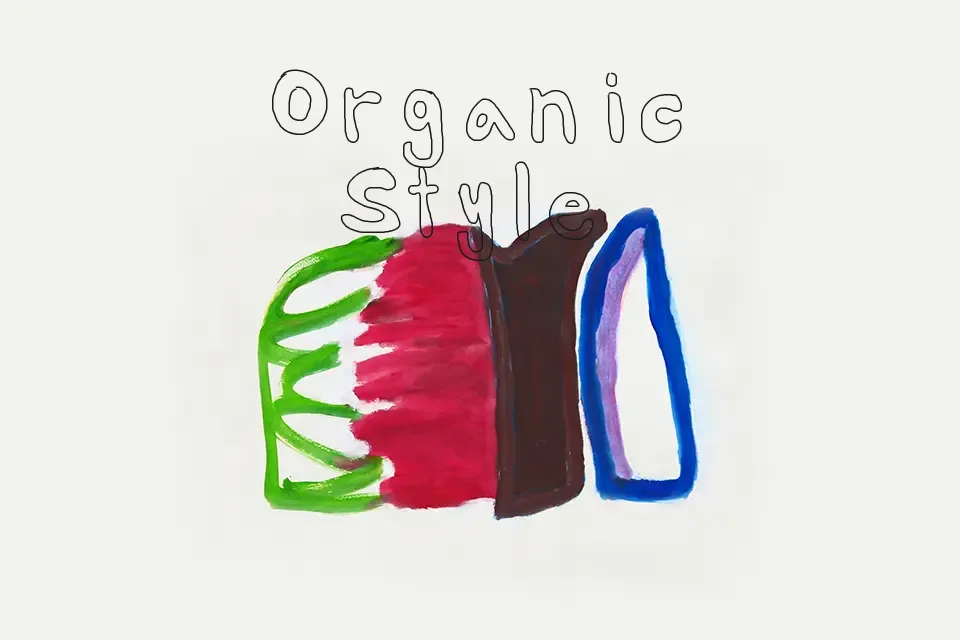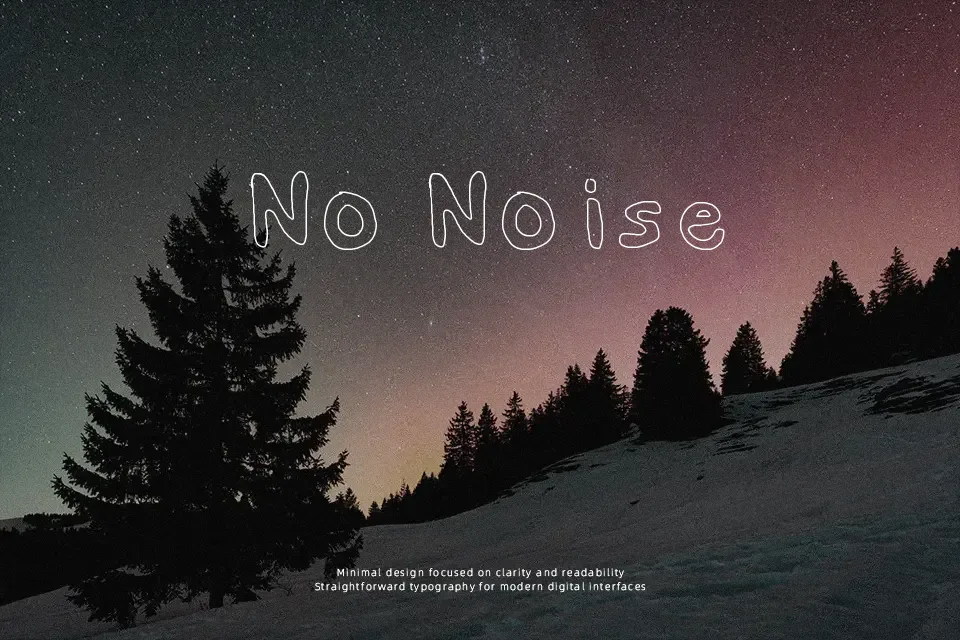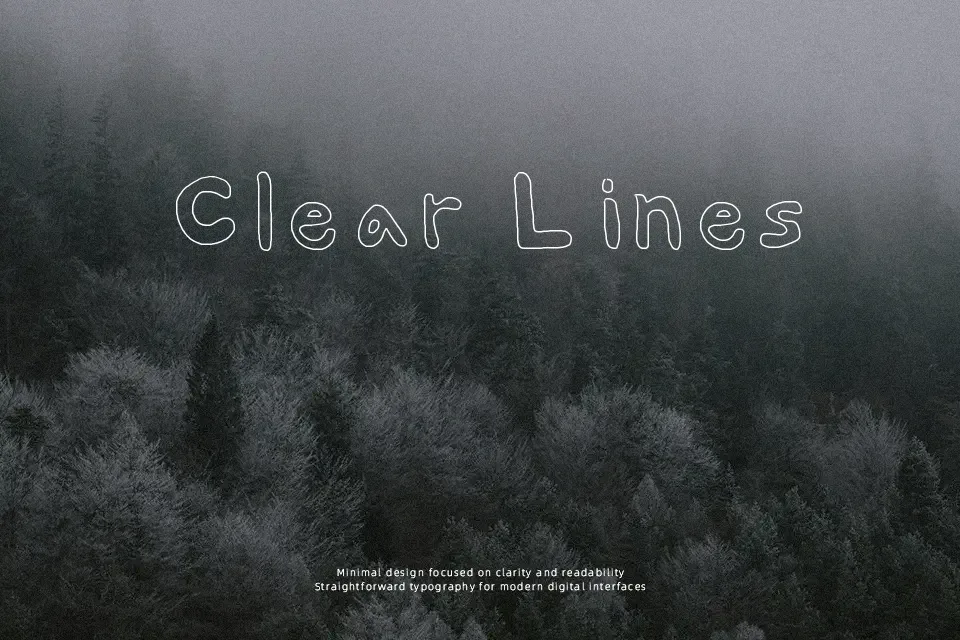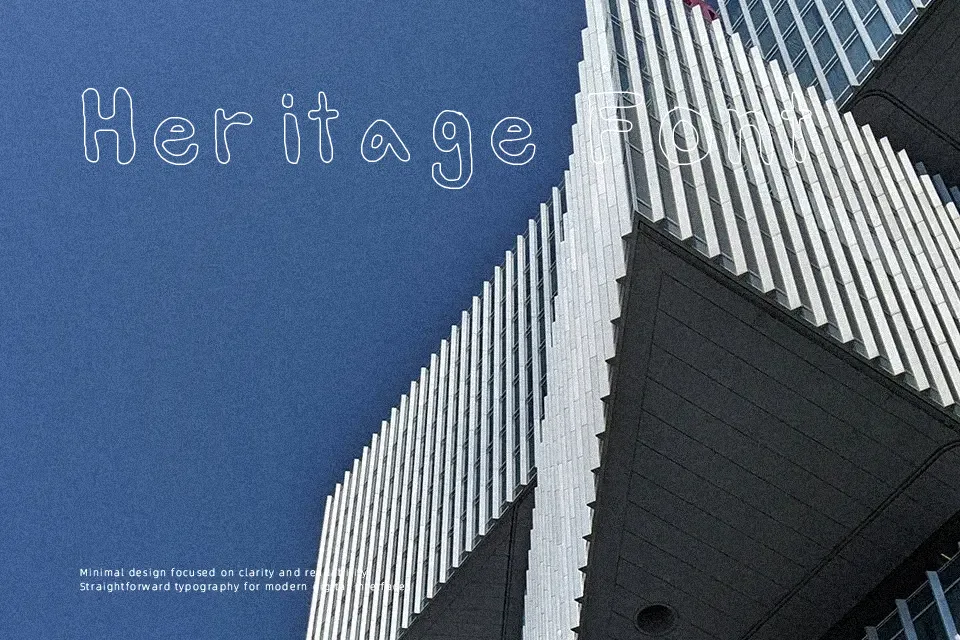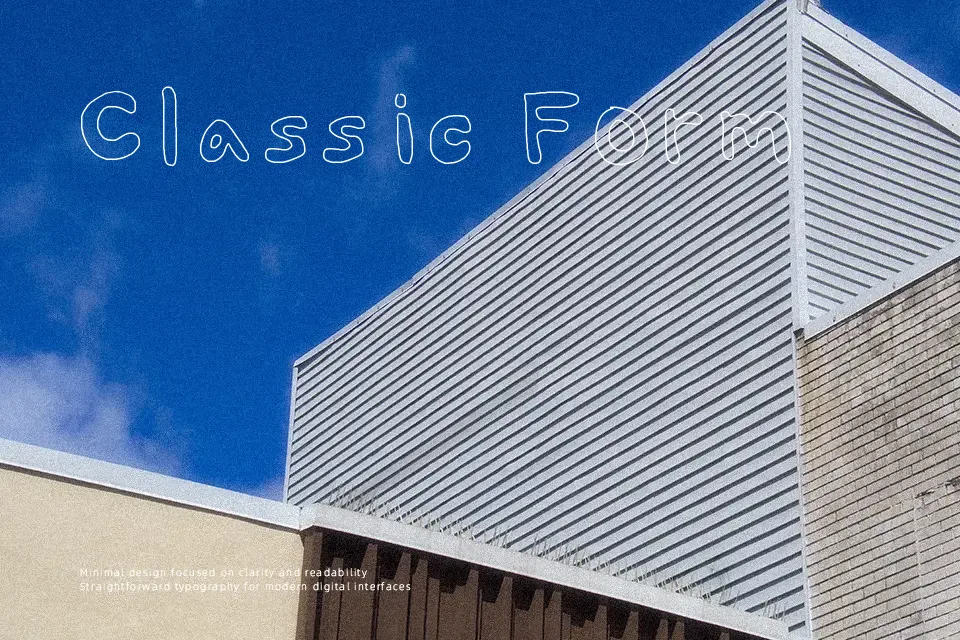
Alexs Bubbles Font
This font leans on soft, rounded outlines that form hollow bubble letters, giving every character a loose, sketchy look similar to doodles in a school notebook. The strokes are even, spacing is open, and the structure stays informal, which keeps text readable at larger sizes while still looking spontaneous and fun. It suits children’s activity sheets, birthday banners, kid-focused social graphics, and playful product labels where a relaxed, handmade mood is more important than strict precision. However, its decorative outline style becomes hard to parse in dense blocks of copy or at very small sizes, so it struggles in long text or professional documents. It works well when you need a friendly, youthful headline, but not when you need clean, serious typography.
kids party invitations
school or classroom posters
playful social media headers
children’s product packaging
small-size UI labels
serious editorial layouts
Perfect for headline, kids, and logo, with a creative and cartoon style.